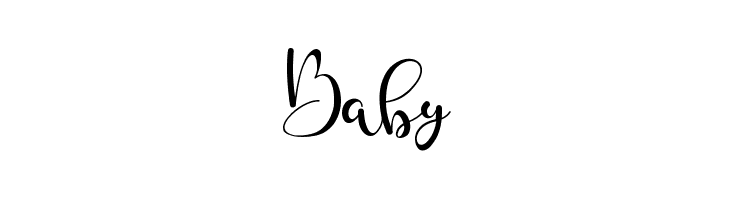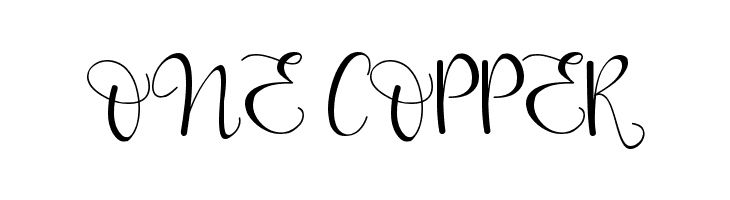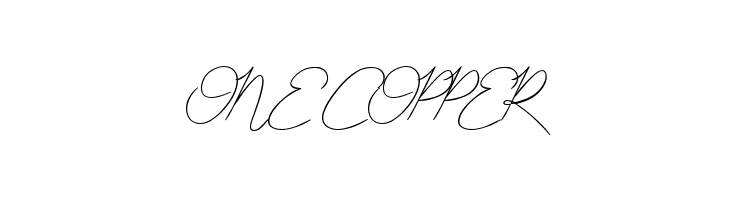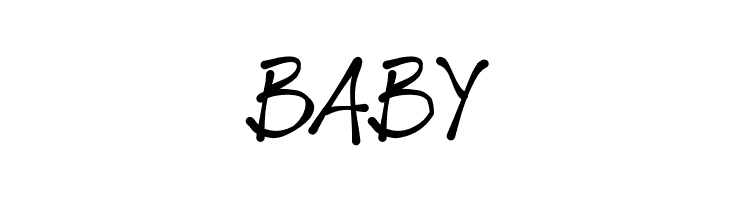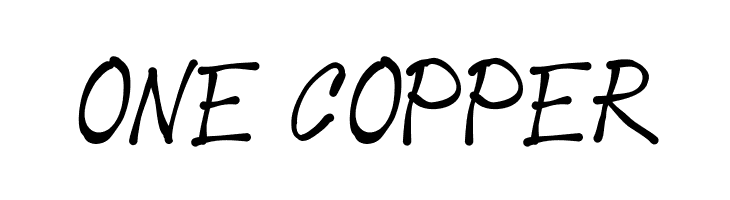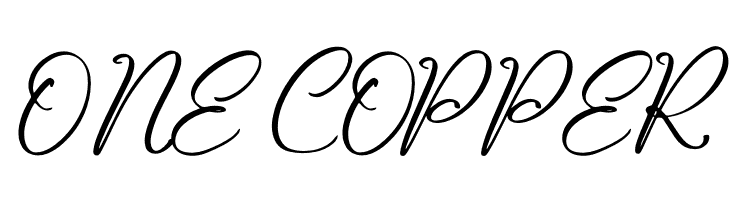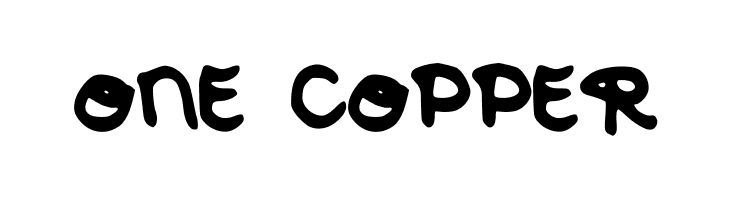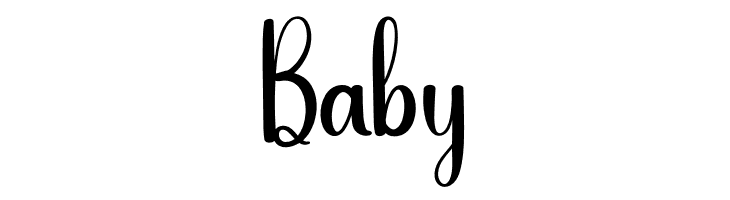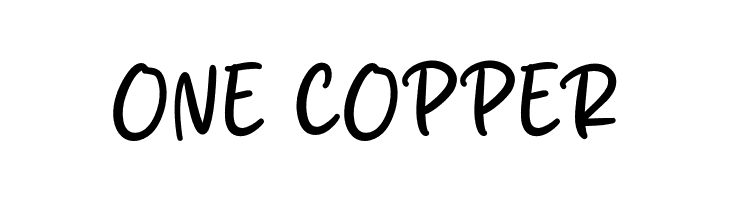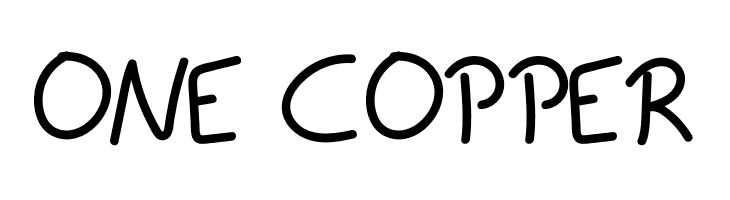
Elegant cursive script with a handwritten style.
A graceful script font with fluid, cursive strokes and elegant curves.
A lively handwritten script with expressive, flowing lines.
A playful, casual handwritten font with smooth, flowing lines.
Casual handwritten script with playful, fluid strokes.
Casual handwritten font with playful, rounded forms.
A bold, playful handwritten font with rounded edges and a casual style.
A casual, handwritten font with a playful and approachable style.
A bold, playful font with handprint motifs on each letter.
Casual handwritten font with a playful style.
A graceful, cursive script font with a natural, handwritten style.
An elegant, flowing script font with interconnected strokes and a sophisticated style.
A playful, handwritten-style font with a casual and friendly vibe.
A playful, casual handwritten font with rounded, consistent strokes.
A decorative script font with elegant, flowing characters and calligraphic style.
A modern, handwritten script with tall, elegant letterforms and playful swashes.
Elegant, italic script font with flowing, connected strokes.
A casual, handwritten font with a dynamic and informal style.